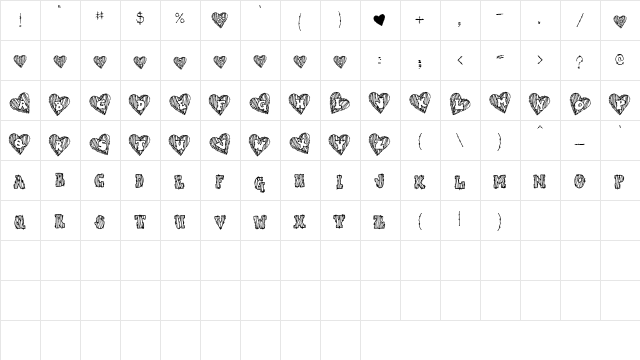
DJ Wood Heart Regular
Design Context for DJ Wood Heart Typeface
DJ Wood Heart echoes the hand-painted signage and woodblock typography of the American frontier, with a warm, rugged personality.
A natural fit for craft spirits, ranch branding, rodeo events, and Americana-inspired design work.
Font Pairing: Combine DJ Wood Heart with a simple slab or neutral sans — period-accurate companions reinforce the vintage feel without competing for attention.
Pro Tip: Use DJ Wood Heart for short, impactful bursts of text — it shines in poster headlines and product names rather than extended copy.